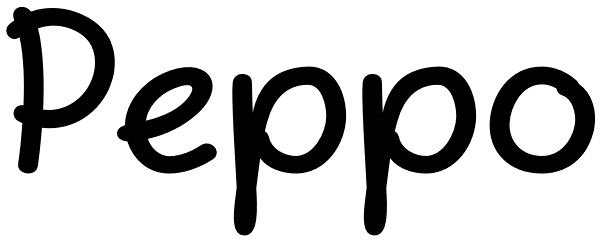
Peppo
Peppo is an informal, simple, readable and easy-on-the-eyes handwritten typeface inspired by hand-written script. Each font providing an organic and spontaneous hand lettering feel. Combination of 12 styles (3 widths and 4 weights) and wide range of...